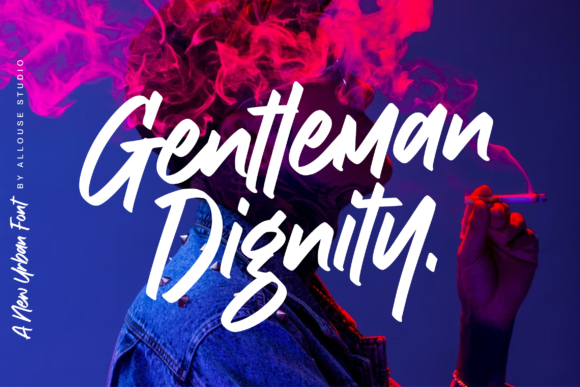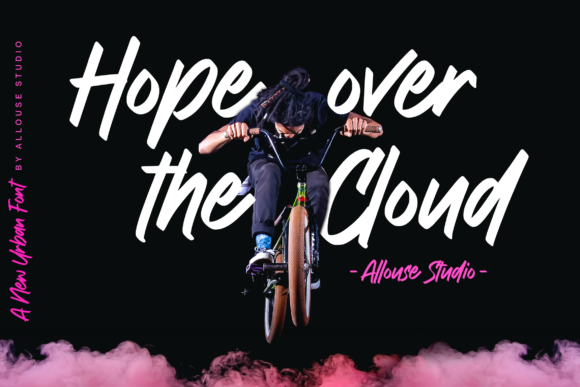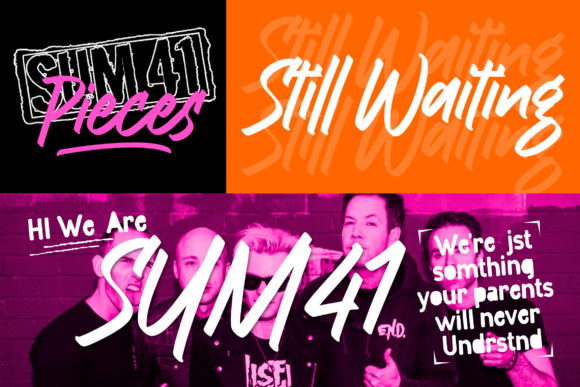
Introduction to Originthink Font
Have you ever found yourself staring at a blank canvas, struggling to find the perfect words to bring your creative project to life? For designers, this moment is all too familiar. But what if you had the perfect tool to elevate your design and make your message stand out? Enter the Originthink Font, a casual and urban styled display font that’s about to revolutionize your design game.
With its perfect blend of modernity and sophistication, the Originthink Font is the ultimate design resource for any creative project. Whether you’re working on a product packaging design, branding project, or simply want to add a touch of elegance to your social media posts, this font has got you covered. And the best part? It’s available for free download, so you can experiment with it and see the magic happen for yourself.
Key Features of Originthink Font
- Unique, modern font style with a transparent background, allowing for versatility in design applications.
- Includes a comprehensive character set, covering a wide range of languages and alphabets.
- Designed to be highly legible at various resolutions, making it suitable for both print and digital applications.
- Comes in a single font size, with a scalable design that adapts to different font sizes and resolutions.
Honest Review: Originthink Font
As a designer, I’m always on the lookout for high-quality design resources to elevate my creative projects. Recently, I stumbled upon the Originthink Font, and I must say it’s been a game-changer for me.
- ✨ High-quality design with a unique, modern aesthetic
- ✨ Transparent background, allowing for seamless integration into various design projects
- ✨ Excellent for use in digital design, from websites to mobile apps
- ⚠️ Limited font styles, which may not be ideal for projects requiring a wide range of fonts
- ⚠️ Not suitable for print design, as the font may not translate well to physical materials
Overall, I’m thoroughly impressed with the Originthink Font. Its modern design and high-quality aesthetic make it an excellent addition to any designer’s toolkit. While it may have some limitations, its free download option and seamless integration capabilities make it a valuable resource for designers working on creative projects.
The Originthink Font is a versatile and high-quality design resource that can elevate your creative project to the next level. With its unique and modern design, it’s perfect for various applications.
Tips for Getting the Most Out of the Font
To get the most out of the Originthink Font, use it on a transparent background to create a modern and sleek design. You can also experiment with different font sizes and styles to create a unique look.
The Originthink Font is perfect for various use cases, including:
- Brochures and flyers
- Website headers and footers